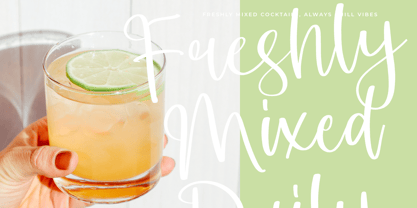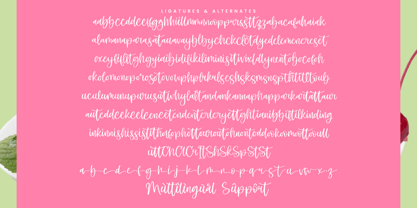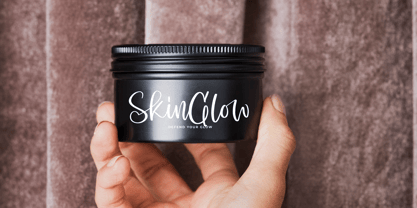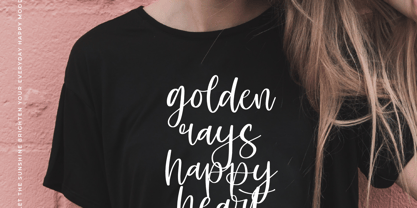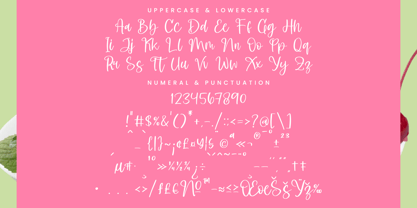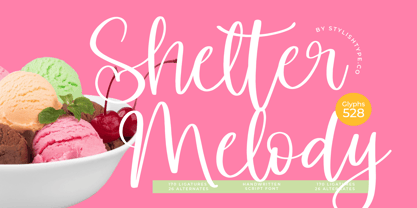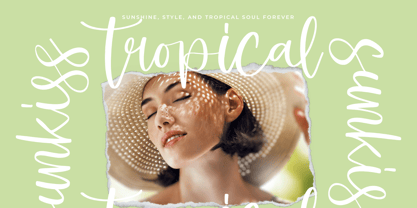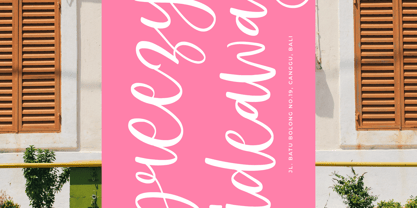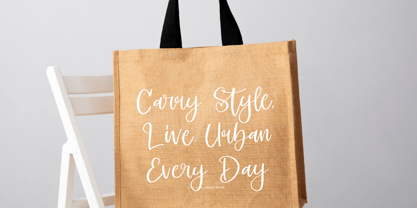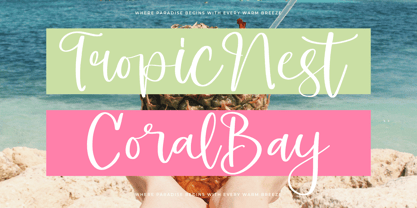
Shelter Melody
by Stylishtype Studio
The Shelter Melody Font Family was designed by Heru Utama Putra and published by Stylishtype Studio. Shelter Melody contains 2 styles and family package options.
Shelter Melody - Handwritten Script Font , from Stylishtype, Suitable for any projects such as: logos, branding projects, homeware designs, product packaging, mugs, quotes, posters, shopping bags, t-shirts, book covers, name card, invitation cards, greeting cards, label, photography, watermark, special events, and all your other luxury and beautiful projects that need a Luxury Script taste.
Shelter Melody